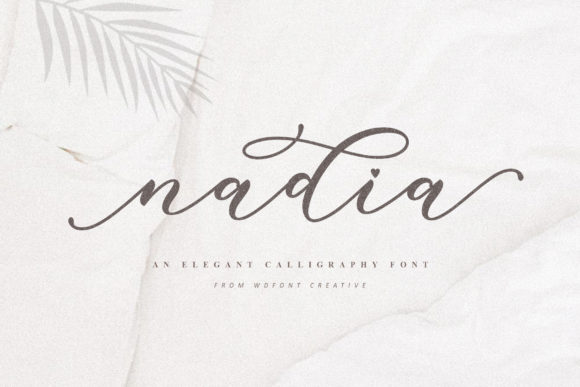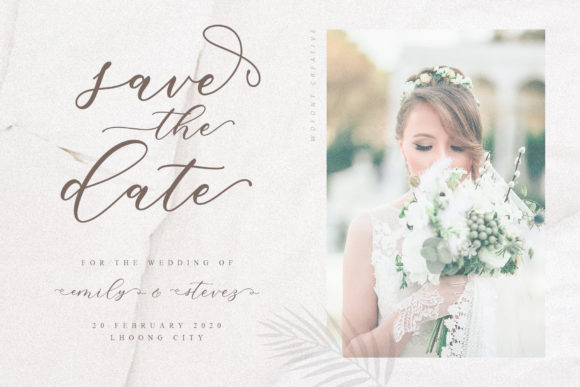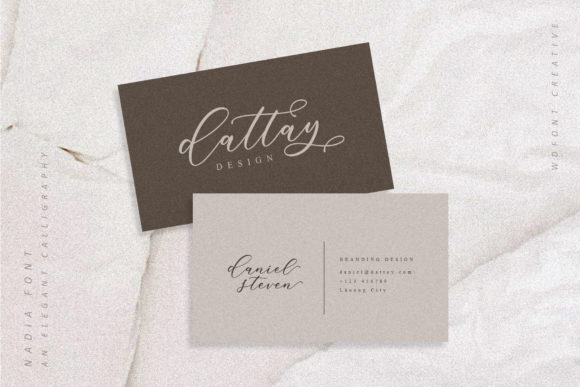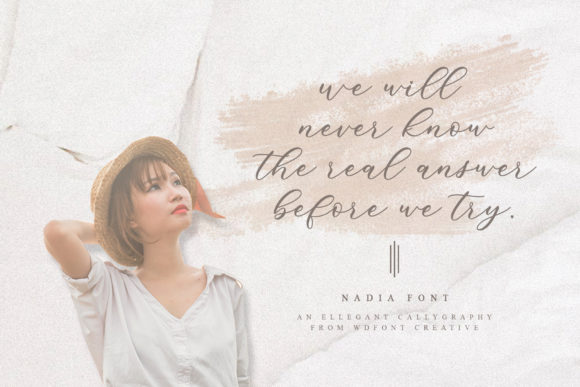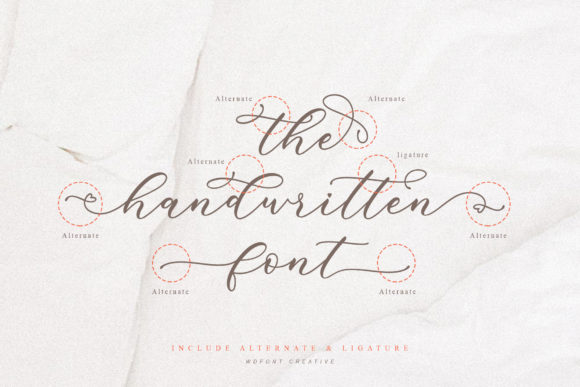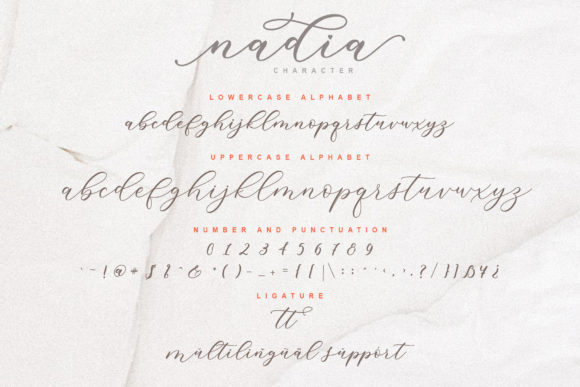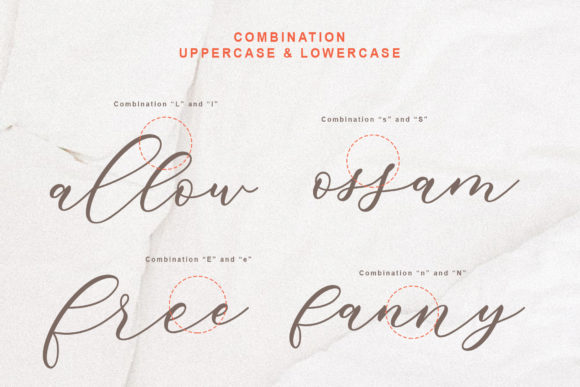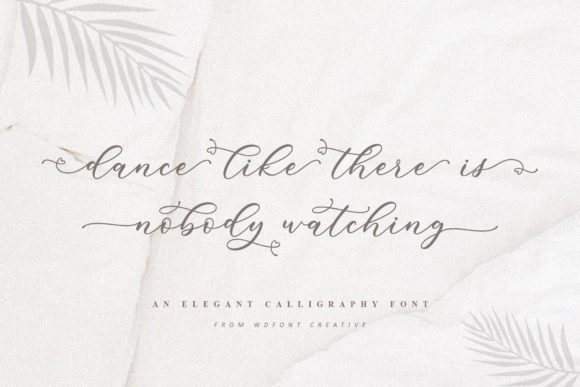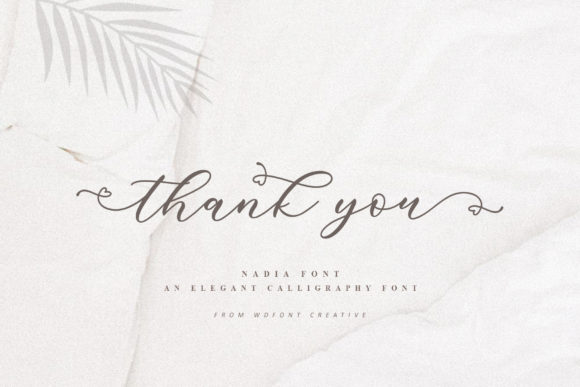
Nadia Font
About Nadia Font
Nadia offers a beautiful love letter to classic calligraphy. This gorgeous script will take any design project to the highest level.